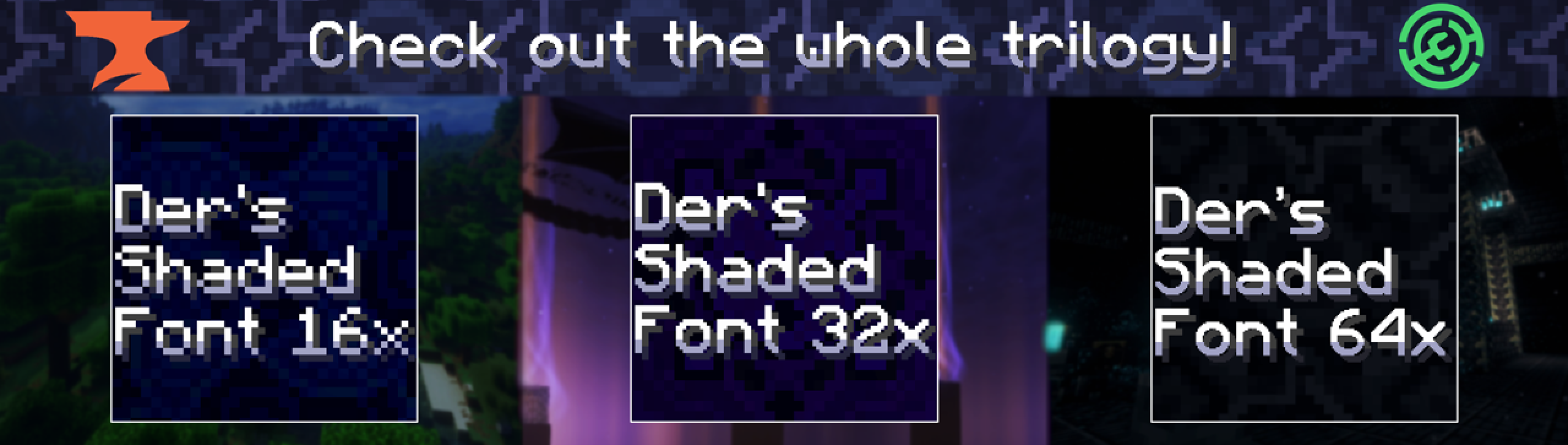
As Der's Shaded Font 16x & 32x are passing a combined 100,000 downloads across both platforms, it has been expanded into a trilogy! Starting with this update, Der's Shaded Font 64x is now available for download on CurseForge & Modrinth and will receive syncronized updates!
Update v21 - All In One:
- Expanded legacy style option to now include all of v9.2's legacy styles (some newer features may not be supported), re-implemented: gray, rose, mint & opal shading styles
- Added legacy shading styles support for Wynncraft font overrides
- Changed word spacing option to be a slider (0-8px) rather than normal/narrow only